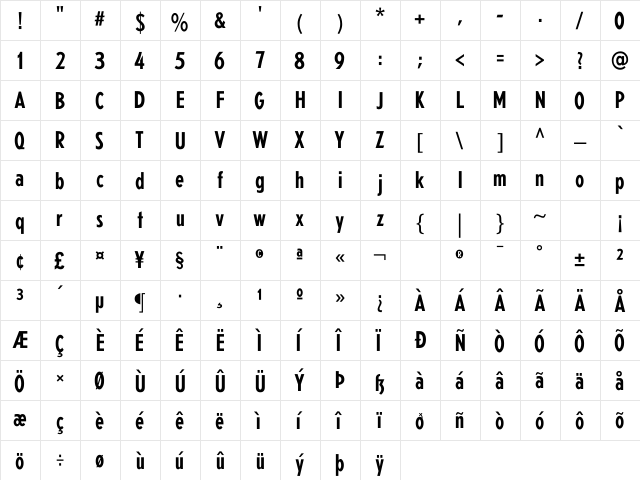
Neu5Land Bold
Design Context for Neu5Land Typeface
Neu5Land takes a measured approach to typography — its balanced proportions and neutral character make it a reliable workhorse for both digital and print work. The heavy weight commands attention and anchors typographic hierarchies.
Pro Tip: Use Neu5Land in both headline and body roles to test its range before committing to a single application.